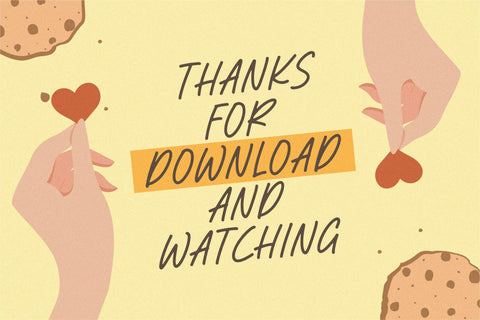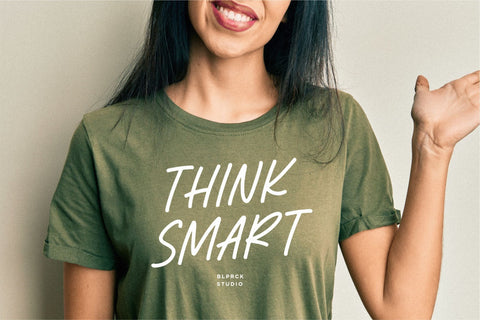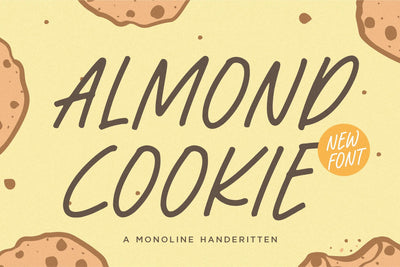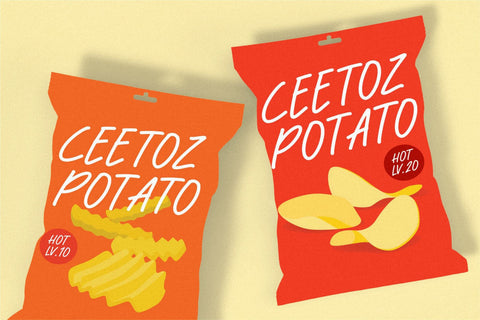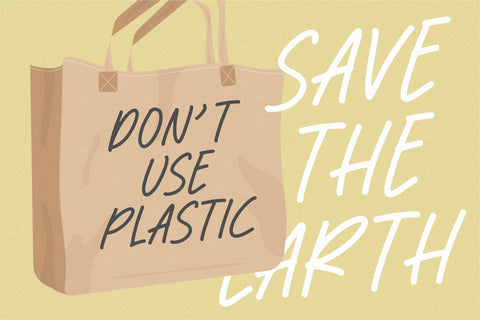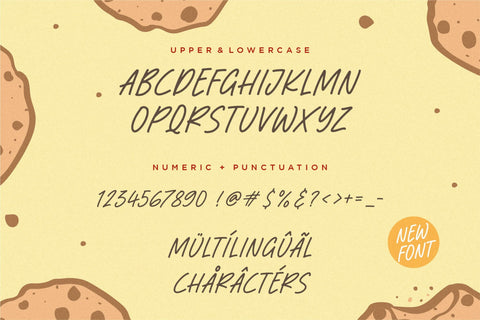
Almond Cookie Font
Almond Cookie is a Monoline Handwritten Font.
Whether you’re using it for crafts, digital design, presentations, or making greeting cards, this font has the potential to become your favorite go-to font, no matter the occasion!
This font only has allcaps letters.